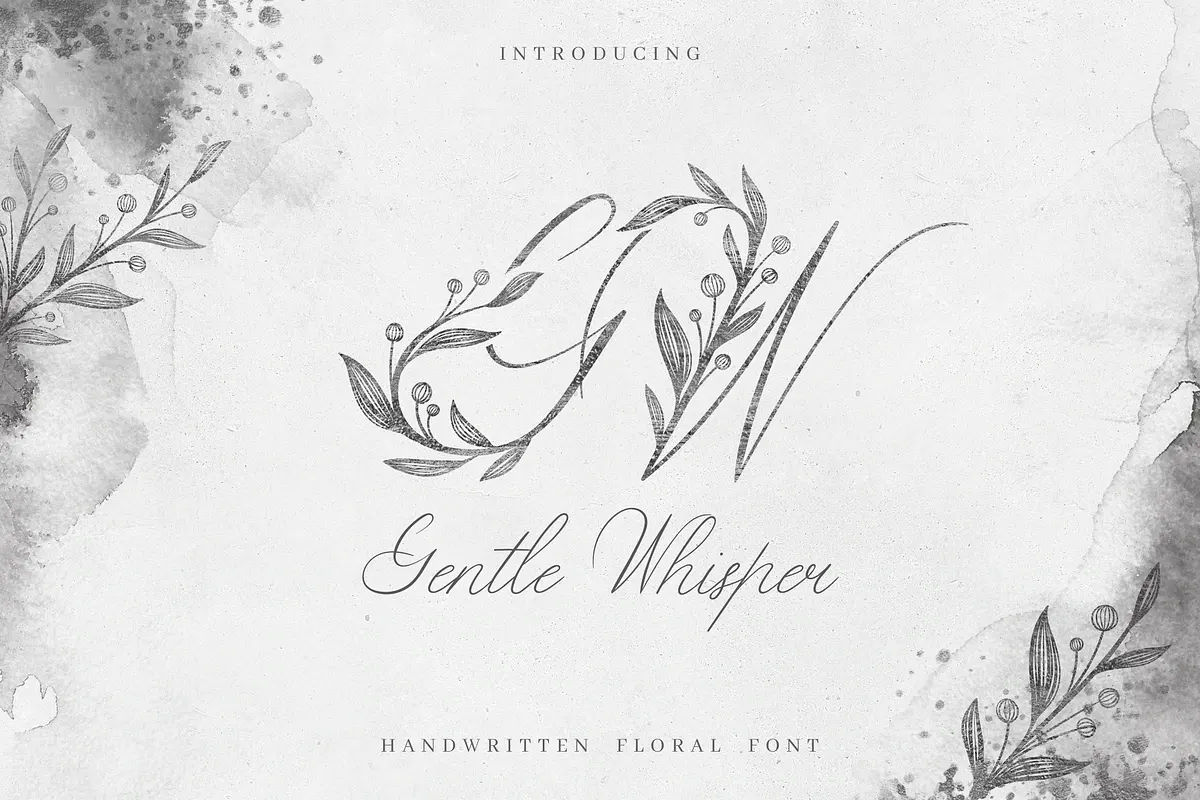
Gentle Whisper. Wedding Floral Font Free Download is a delicate and elegant typeface designed to bring a touch of romance and sophistication to your designs. Featuring floral accents and graceful curves, this font is perfect for wedding invitations, event stationery, logos, and other romantic-themed projects. Its handcrafted style adds a personal and intimate touch, making it ideal for creating beautiful designs that evoke love and elegance. Whether you’re designing a wedding invitation, crafting a bespoke logo, or creating social media content for a special event, Gentle Whisper. Wedding Floral Font Free Download lets you explore its timeless beauty in personal projects before purchasing a commercial license. Add charm and elegance to your designs with this beautifully crafted wedding floral font.